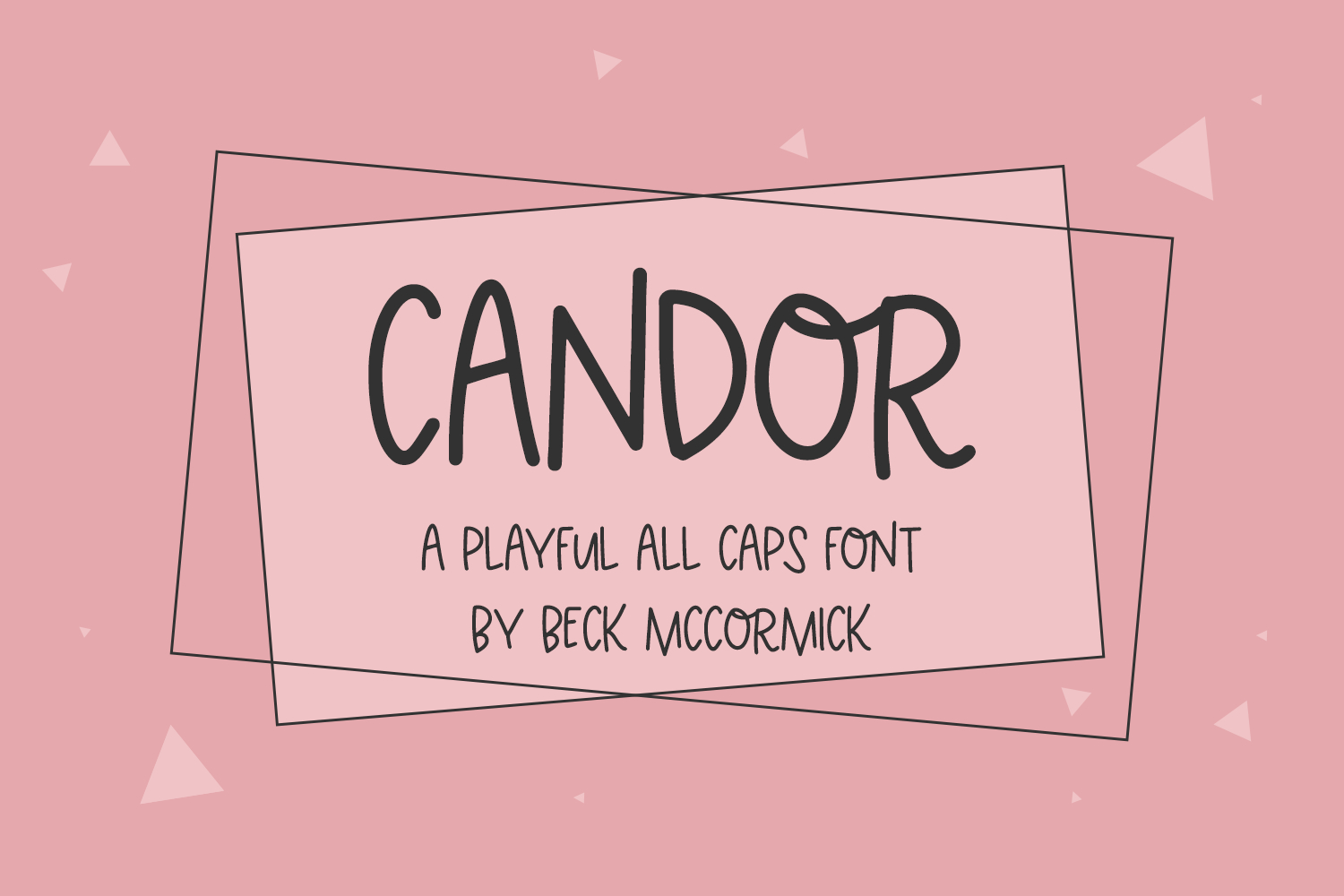
Candor Sans is an all caps handwriting font with a playful aesthetic and an adorable loopy O. Candor is a perfect fit for your cute home decor projects, your Cricut machine, logo & branding projects, marketing materials, social media graphics, & more.
- 6 ligatures - OA, OJ, OO, OQ, OT, OU